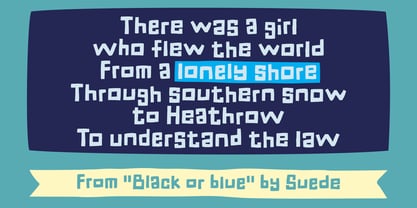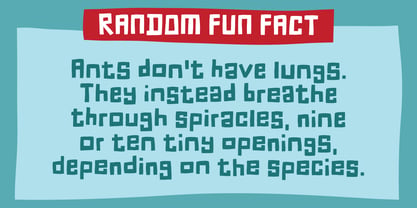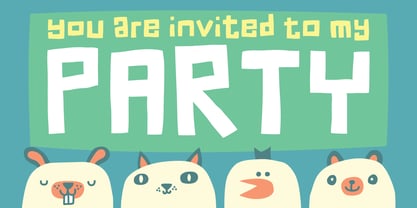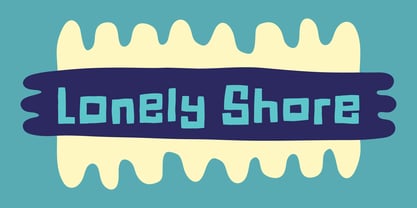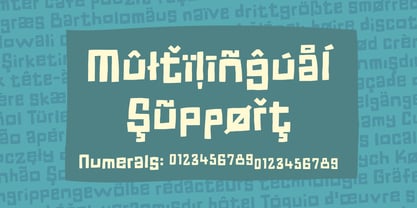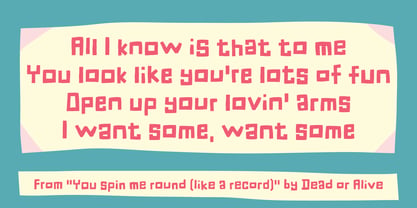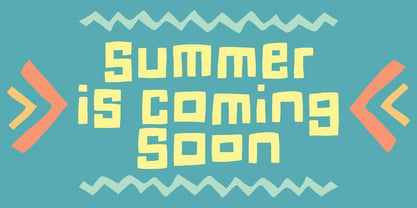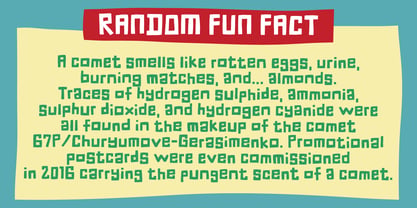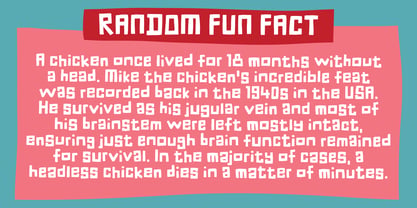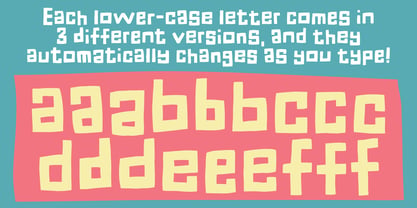
Lonely Shore
by PizzaDude.dk
The Lonely Shore Font Family was designed by Jakob Fischer and published by PizzaDude.dk. Lonely Shore contains 2 styles and family package options. More about this family
“Lonely Shore” is my mysterious handmade sans font - yes, it is handmade, and yes, it is kinda rugged. But which style fits this font the best? To tell you the truth, I am not even sure myself! :) The inspiration came to me one day, when scribbling on a squared paper. I was doing random patterns, just to kill time. And suddenly, the shape of an off-grid “s” appeared! The way of the upcoming font was invented: Away with the squared paper, and draw this off-grid squarish font! Well, not all is square - I did make some exceptions in the K, R, V, W, X and Z’s … but that just made things more legible. In total I added 3 versions of each lowercase letter, and making them change as you type. A really clever way to make your text even more organic and lively!
Designers: Jakob Fischer
Foundry: PizzaDude.dk